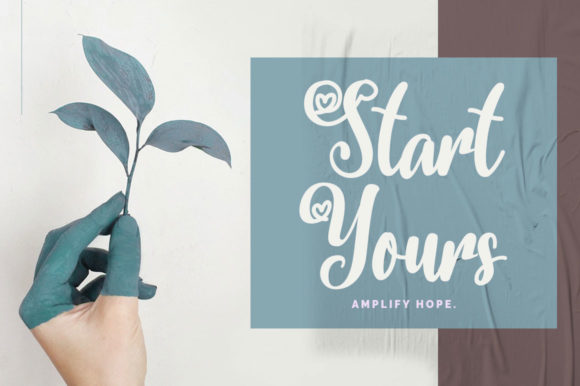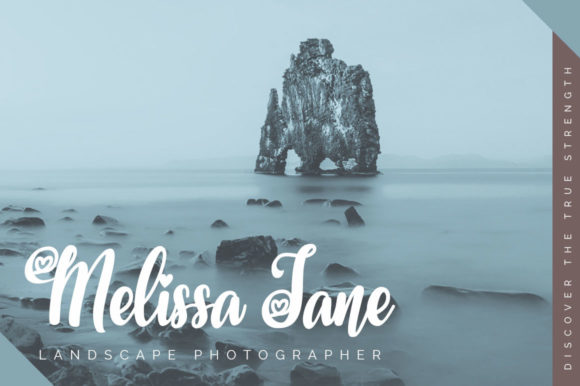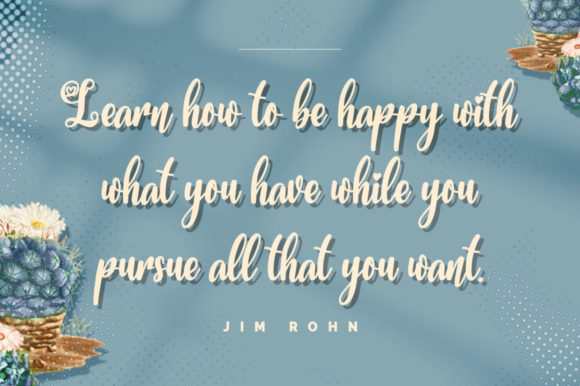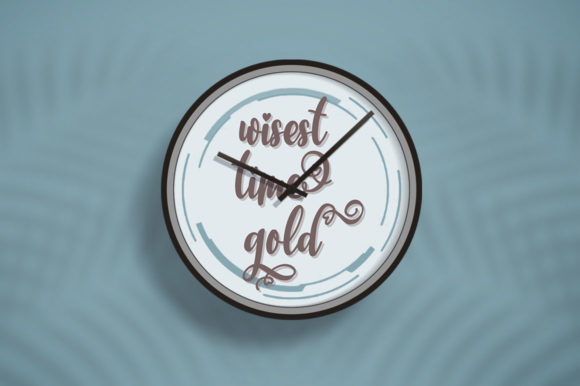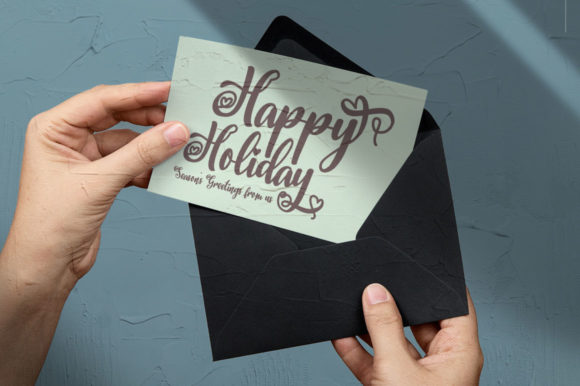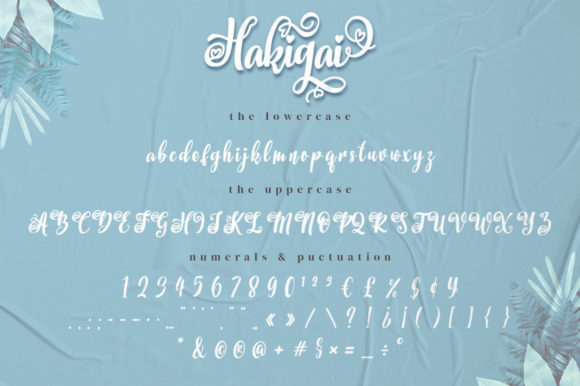
Introduction to Hakigai Font
Have you ever found yourself staring at a blank canvas, struggling to bring your creative project to life? The blank page can be daunting, but the right design resource can be the spark that ignites your imagination. For designers seeking a beautiful and refreshing look, the Hakigai Font is a game-changer.
This lovely and delicate script font exudes elegance and class, making it the perfect choice for designers who want to add a touch of sophistication to their designs. Whether you’re working on a personal project or a commercial design, the Hakigai Font is a valuable asset that can elevate your work to the next level.
Hakigai Font
- High-quality, professional font perfect for creative projects and designs.
- Unique characteristics: elegant, modern, and sophisticated design elements.
Honest Review: Hakigai Font
I recently stumbled upon the Hakigai Font while searching for a high-quality font to use in my creative project. As a designer, I was excited to try out this free download and see if it would meet my expectations.
- Unique and elegant design: The Hakigai Font has a beautiful and distinctive style that sets it apart from other fonts. Its clean lines and subtle curves make it perfect for use in a variety of creative projects.
- High quality: The font is incredibly well-made and looks great at various font sizes and styles.
- Limited character set: The Hakigai Font has a limited character set, which may not be suitable for projects that require a wide range of characters.
- Not suitable for large-scale projects: While the font looks great at smaller sizes, it may not be the best choice for large-scale projects where clarity and readability are crucial.
Overall, I’m impressed with the Hakigai Font, but it’s essential to keep its limitations in mind when deciding whether to use it in your design project. With its unique design and transparent background, it’s a great choice for many creative projects, but it may not be the best fit for every project.
Tips for Getting the Most Out of Hakigai Font
Use the Hakigai Font in combination with other design elements to create visually appealing and unique designs. Experiment with different font sizes, colors, and styles to get the most out of this high-quality font.
The Hakigai Font is ideal for use in creative projects, such as graphic design, digital art, and typography. Its transparent background and high quality make it suitable for use in presentations, documents, and web designs.